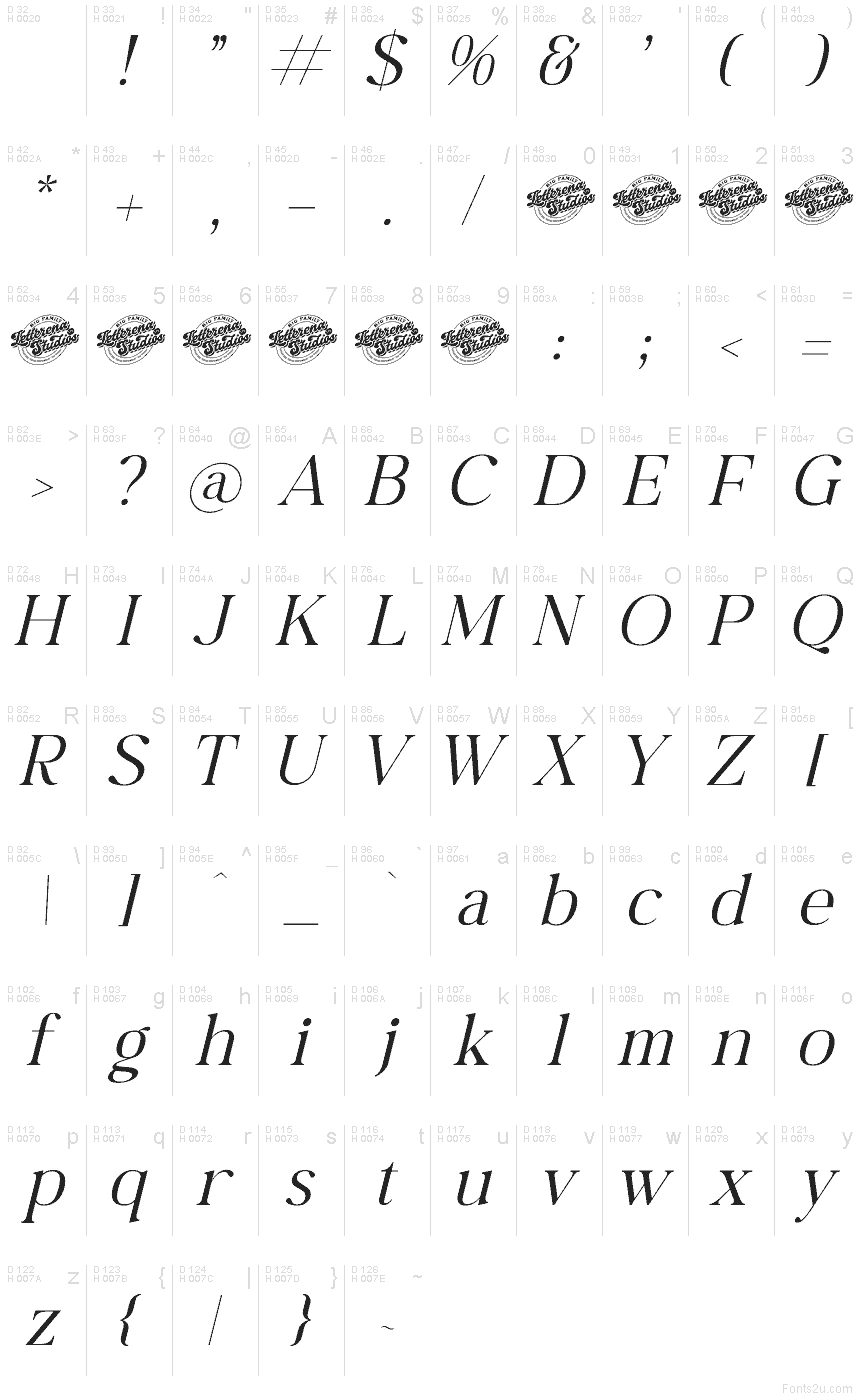
Begifta DEMO VERSION Italic
Begifta Italic font by Letterena Studios is a free italic serif font. Part of the Begifta family, it leans into a high-contrast rhythm: silky hairlines, inky thick strokes, and razor-fine serifs that flick like a calligrapher’s last touch. The slanted posture adds movement without getting fussy, so headlines feel luxe and legible rather than ornamental.
Using Begifta Italic, branding and packaging, magazine covers, beauty campaigns, wedding stationery, product labels, and social media headers all gain a polished, editorial glow. This free font shines when set large, letting those tapered strokes and sculpted curves breathe. Pair it with a clean geometric sans for body copy and you’ll get that crisp-luxe tension that sells.